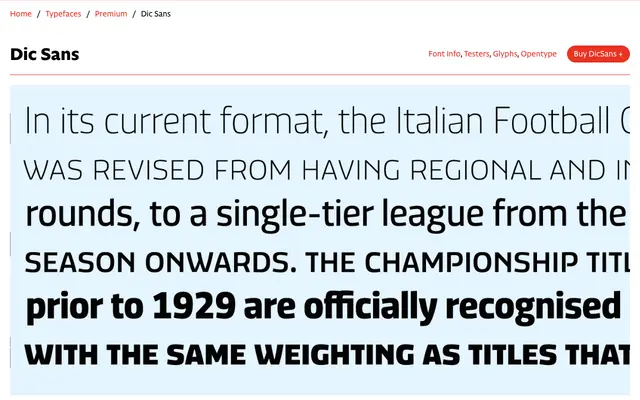
Dic Sans
CAST · Luciano Perondi · 2004
A square sans serif by Luciano Perondi, conceived in 2004 and developed over a decade, taking Eurostile as a starting point but opening up the apertures for better legibility at small sizes.
Conceived in conversation with Lucio Lazzara in 2004 and refined through visual identity projects over the following ten years, this square sans offers ten weights from Thin to ExtraBlack. Unlike Eurostile, the design pulls back from strict geometry in favour of wider apertures, which helps it hold up in captions and footnotes as well as at headline scale. OpenType features include small caps, oldstyle figures, contextual arrows, expressive punctuation sets and multiple stylistic alternates.
The page explicitly describes it as a square sans serif. It draws on Novarese's Eurostile but is less geometric, with wider apertures, placing it in the square grotesque tradition rather than pure geometric.